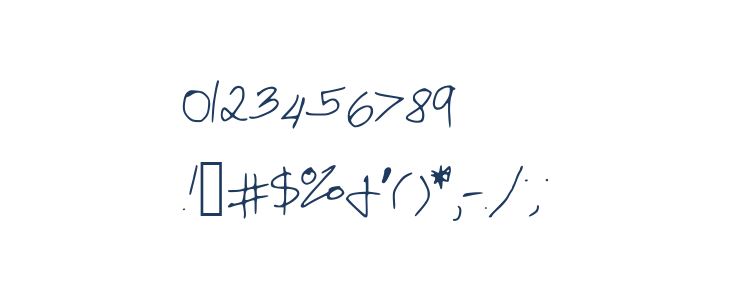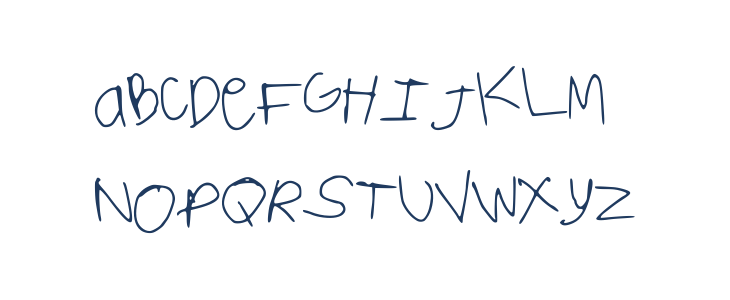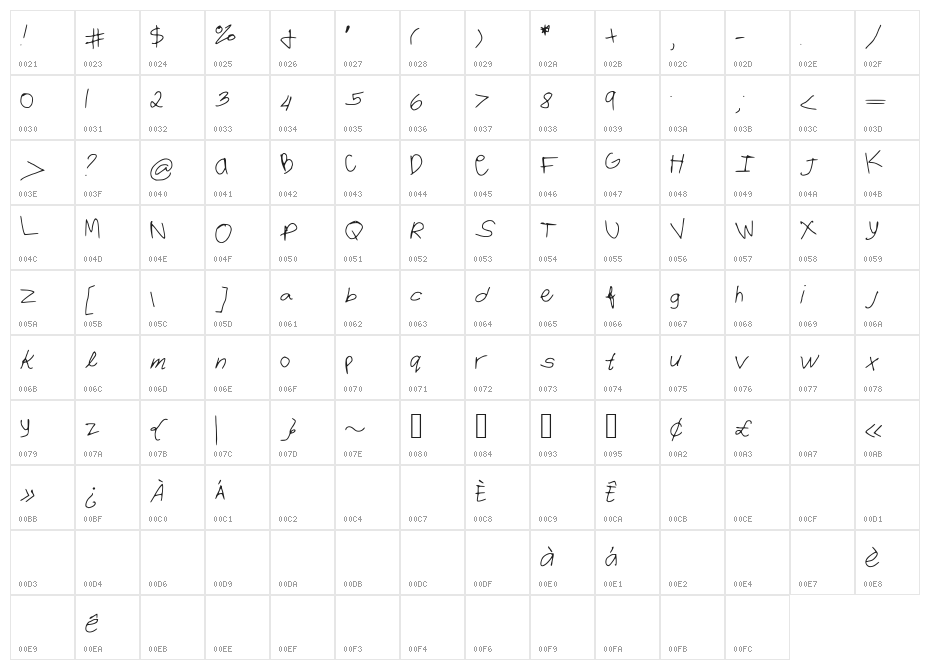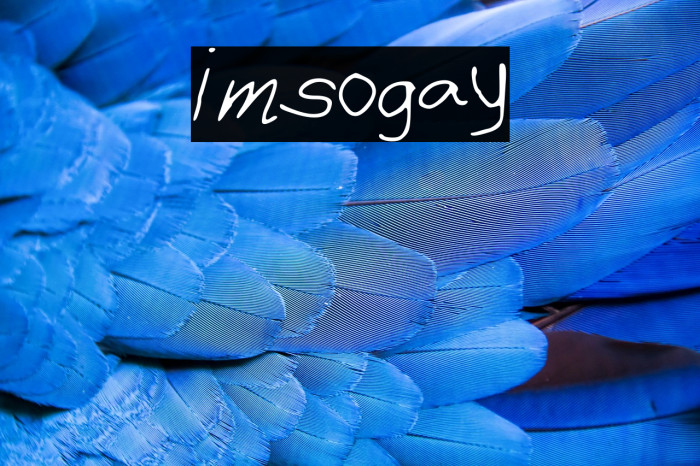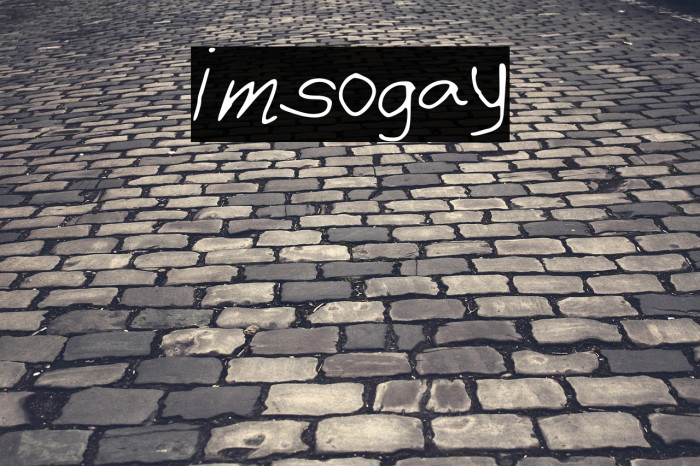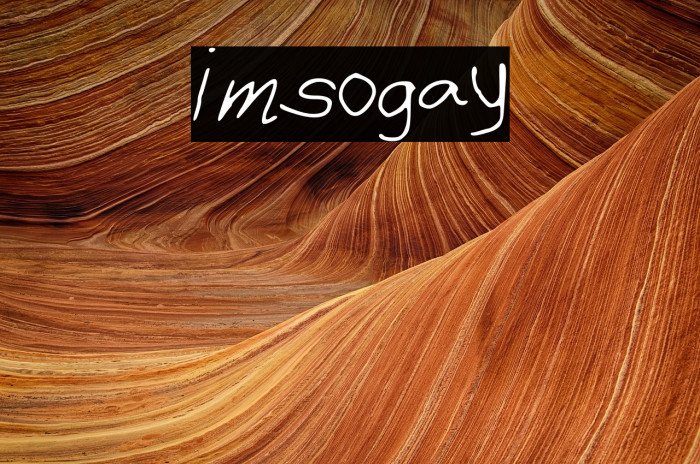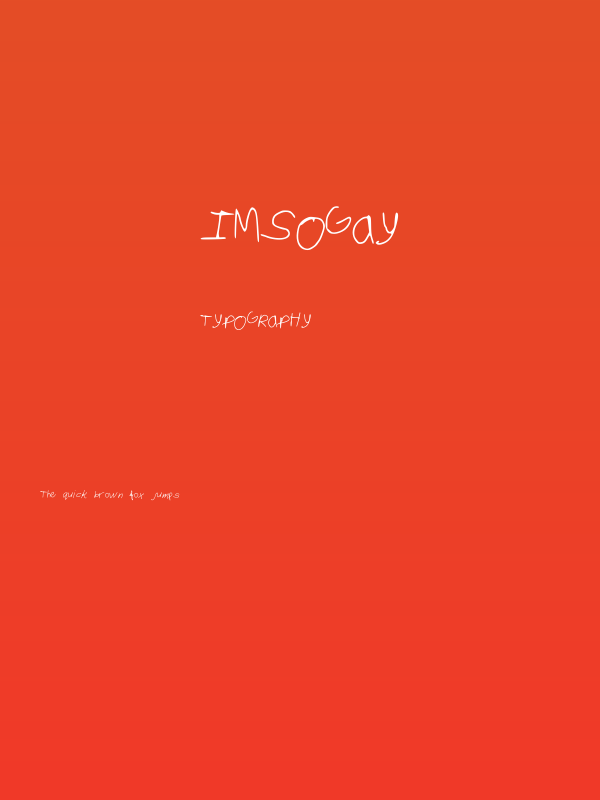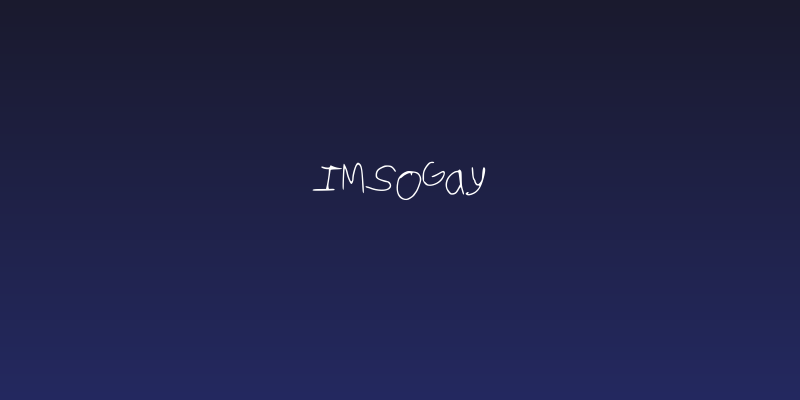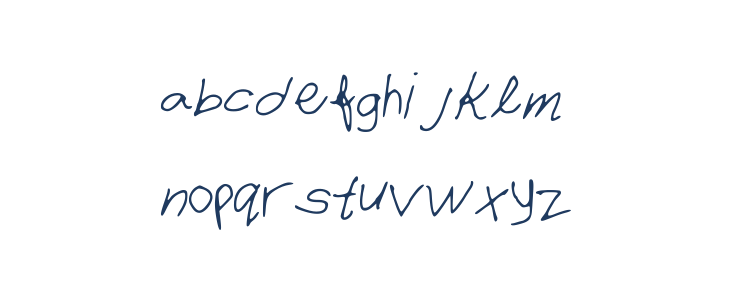
imsogay Font
imsogay Description
A casual, handwritten font with irregular strokes and playful, natural letterforms. The characters have varying heights and slants, mimicking authentic handwriting with a loose, informal feel.
| Overall Style | Casual, Playful, Informal |
| Use Case | Personal notes, Greeting cards, Informal branding |
| Proposed Projects | Personal notes, greeting cards, informal branding, children's books, creative posters. |